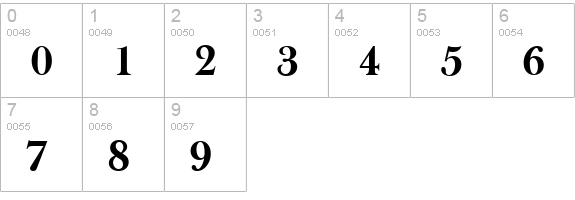
BaskerOldSerial-Xbold-Regular is the standard, neutral variant in the BaskerOldSerial typeface family \xE2\x80\x94 well suited to general body text, paragraphs, and standard typographic work.
BaskerOldSerial-Xbold-Regular font is a bold and striking typeface that exudes a sense of classic elegance and sophistication. With its strong, clean lines and sharp angles, this font is perfect for making a bold statement in any design project. Whether you're creating a logo, poster, or website, BaskerOldSerial-Xbold-Regular font will add a touch of timeless style. The best part? BaskerOldSerial-Xbold-Regular font is available for free download at FontsMarket.com. You can easily access this sleek and versatile font to enhance your creative projects without any cost. Embrace the power of BaskerOldSerial-Xbold-Regular font to elevate your designs and leave a lasting impression on your audience.